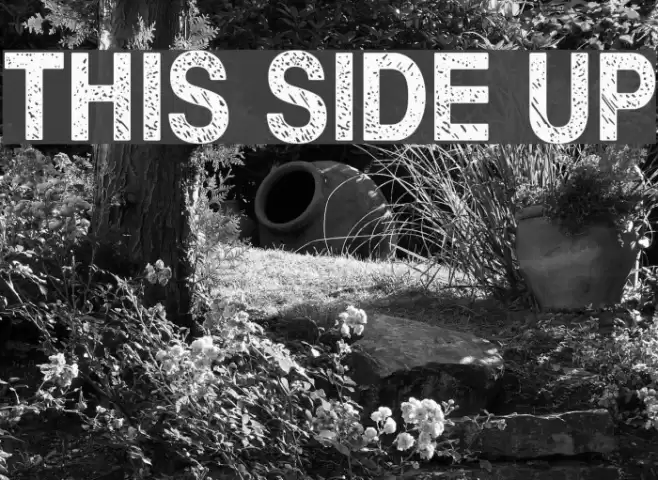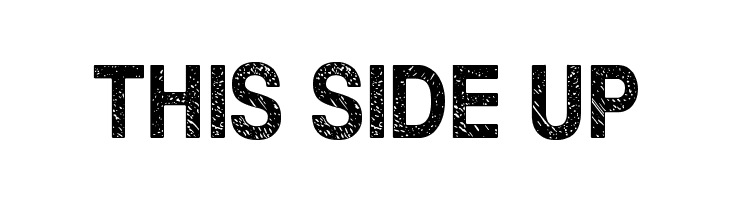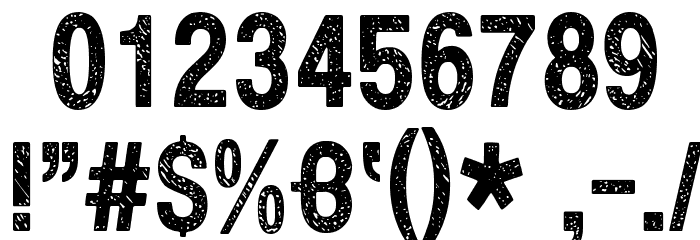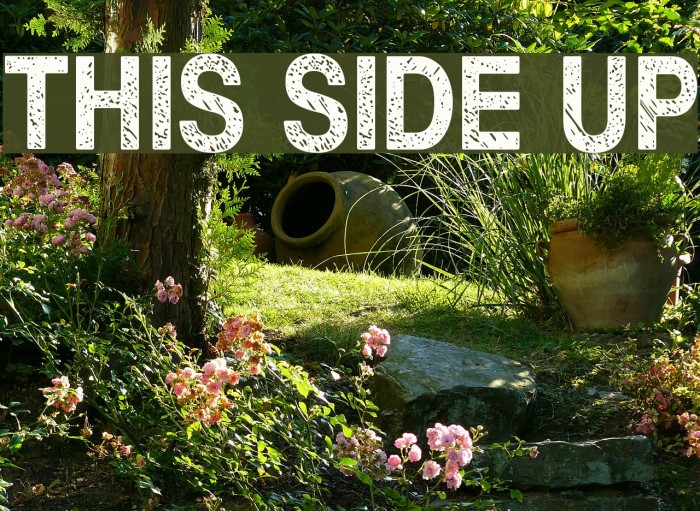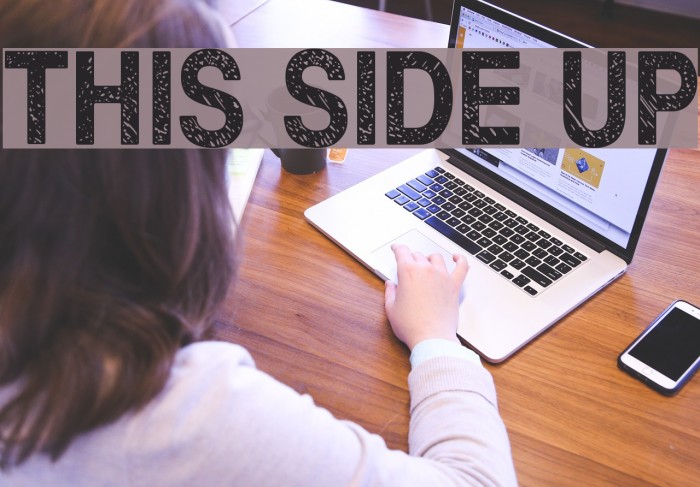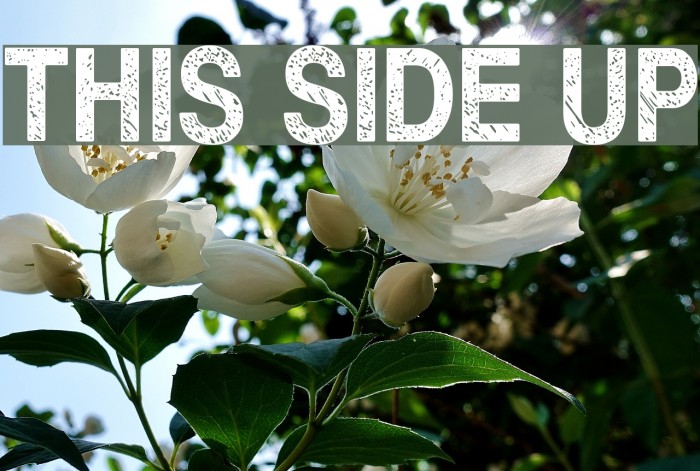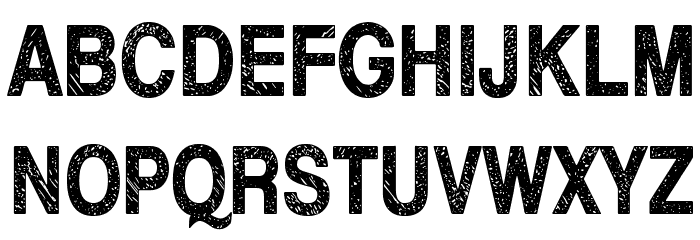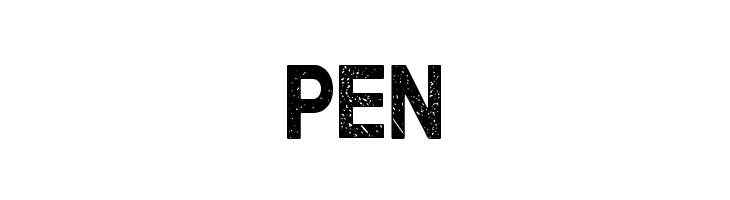
This side up Font
This side up Description
This font features a bold, distressed style with a textured appearance that gives it a rugged, vintage feel. The uppercase and lowercase letters are uniformly bold, with a consistent thickness that maintains legibility despite the distressed effect. The numbers and special characters share the same textured design, creating a cohesive look across all elements. This font is ideal for projects that require a strong, impactful presence with a touch of nostalgia or a handcrafted aesthetic. The distressed texture adds character and depth, making it suitable for branding, posters, and other creative designs.
A bold, distressed font with a textured, vintage appearance from Decorative fonts.
- Proposed Projects: Ideal for branding, posters, vintage-themed designs, and creative projects requiring a bold statement.
- Overall Style: Vintage